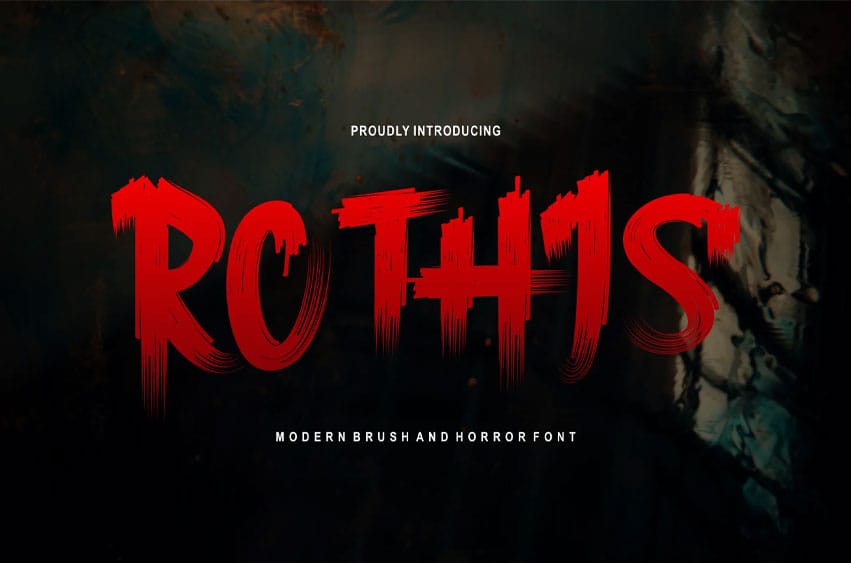
Rothis Font Modern Font is a simple and authentic display font.
It fits in headlines, logos, posters, flyers, invitations, name cards, branding materials, print media, editorial layouts, and many more.